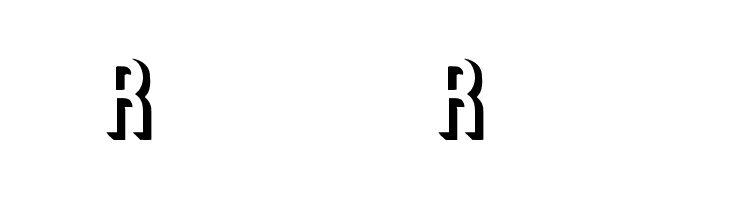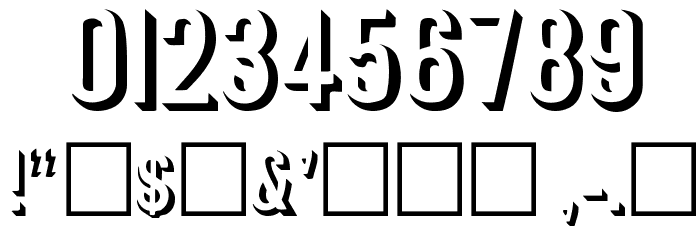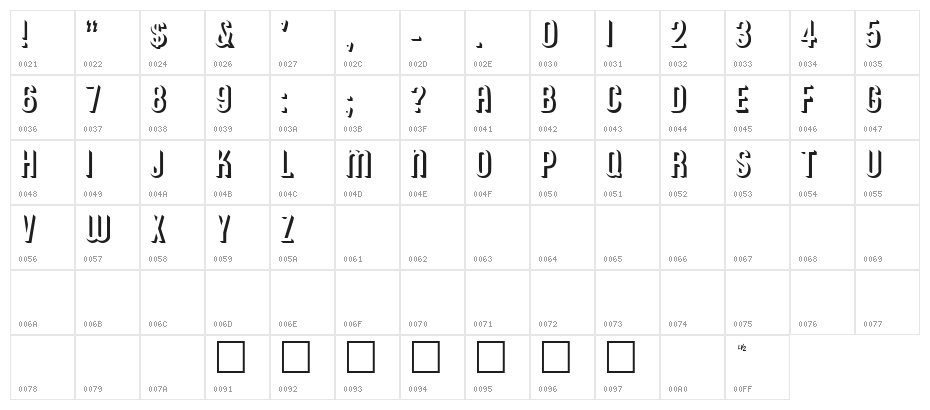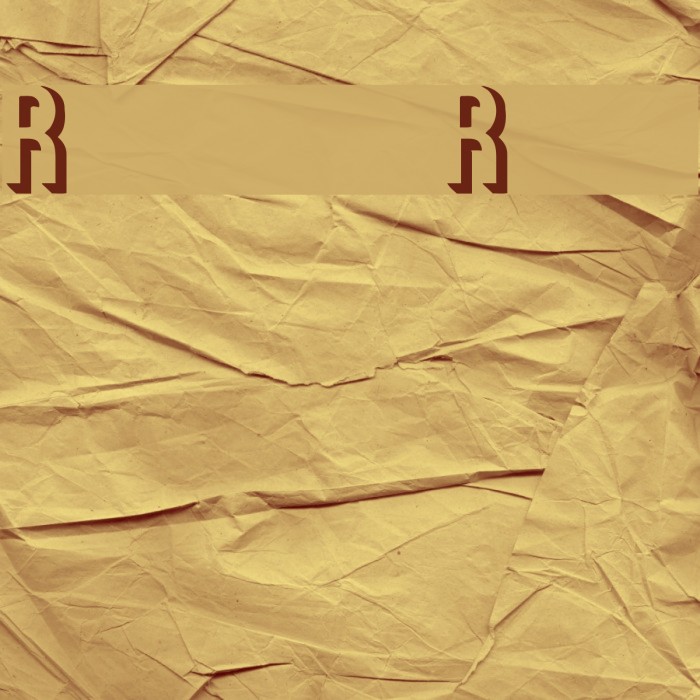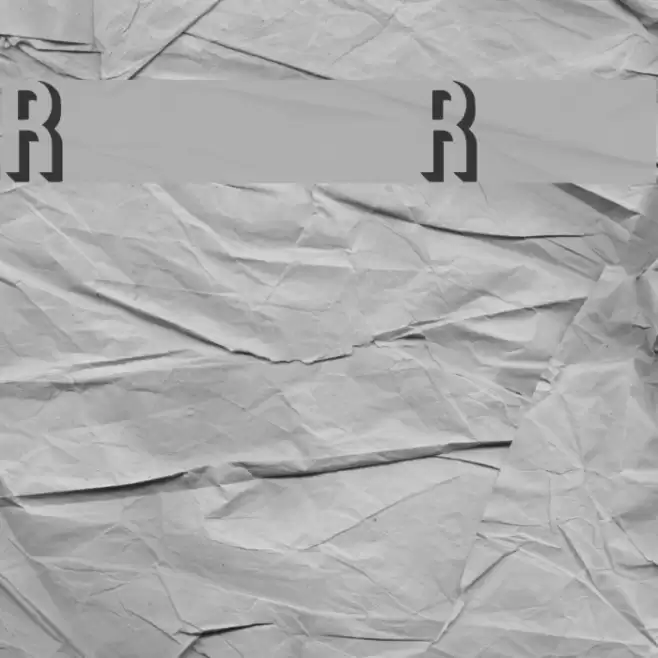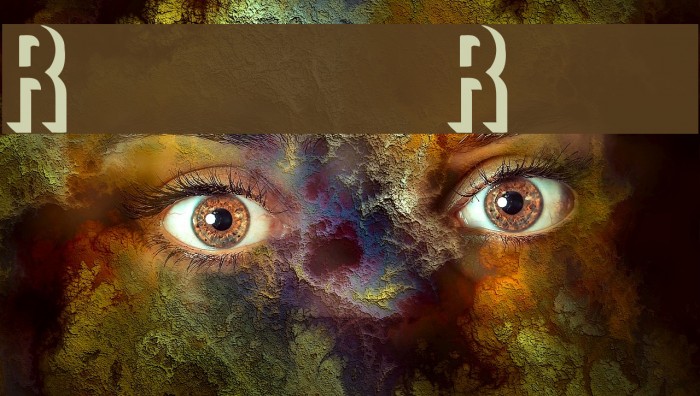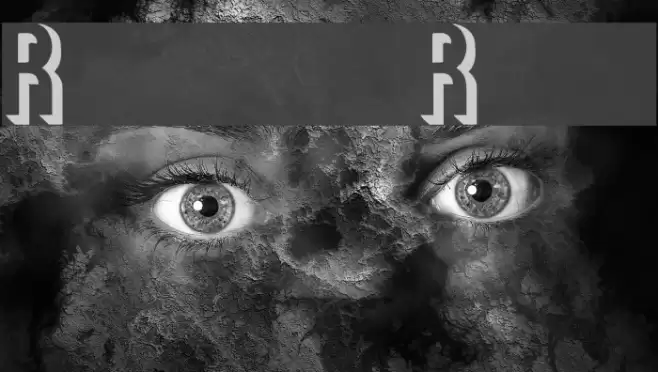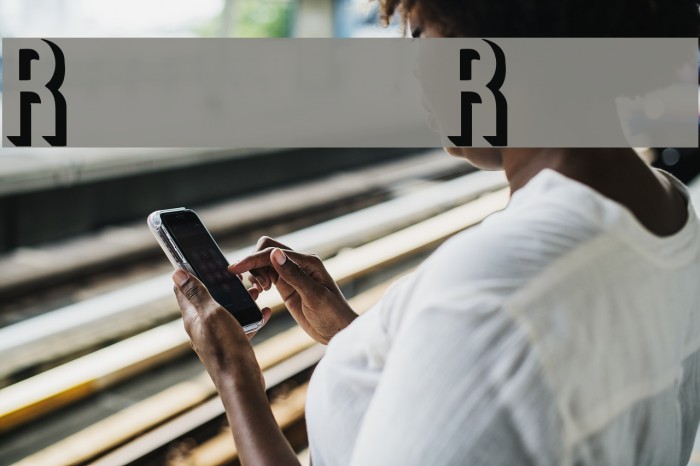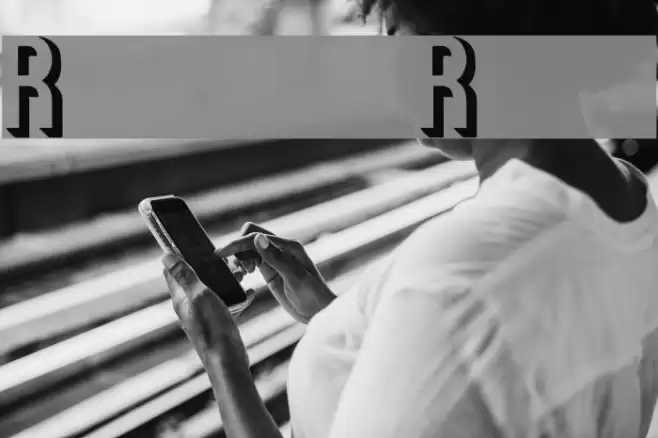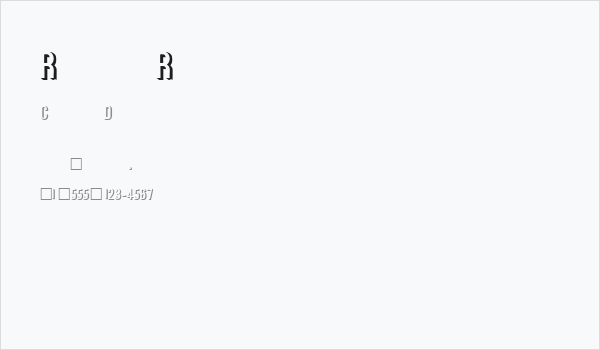
RoundedRelief Font
RoundedRelief Description
This font features a bold and striking design with a three-dimensional effect, giving each character a sense of depth and shadow. The uppercase letters are prominent and have a strong presence, making them ideal for attention-grabbing headlines. The numbers and special characters follow the same bold style, ensuring consistency across all text elements. The font's unique style is characterized by its rounded edges and relief-like appearance, which adds a touch of modernity and sophistication. This font is perfect for projects that require a bold statement, such as posters, logos, and branding materials.